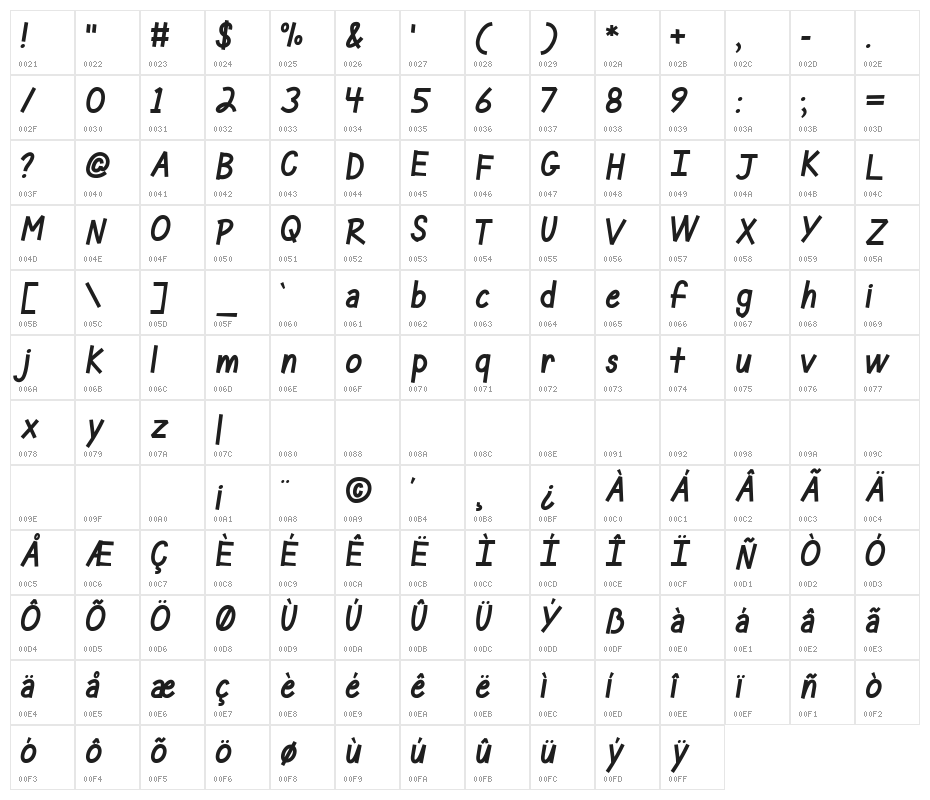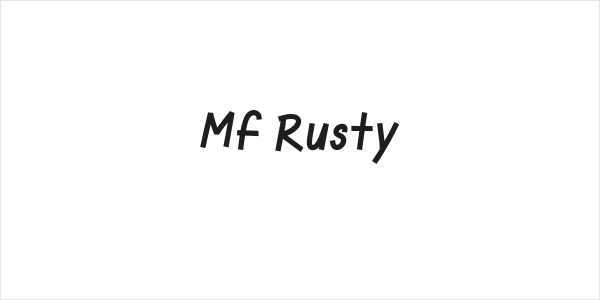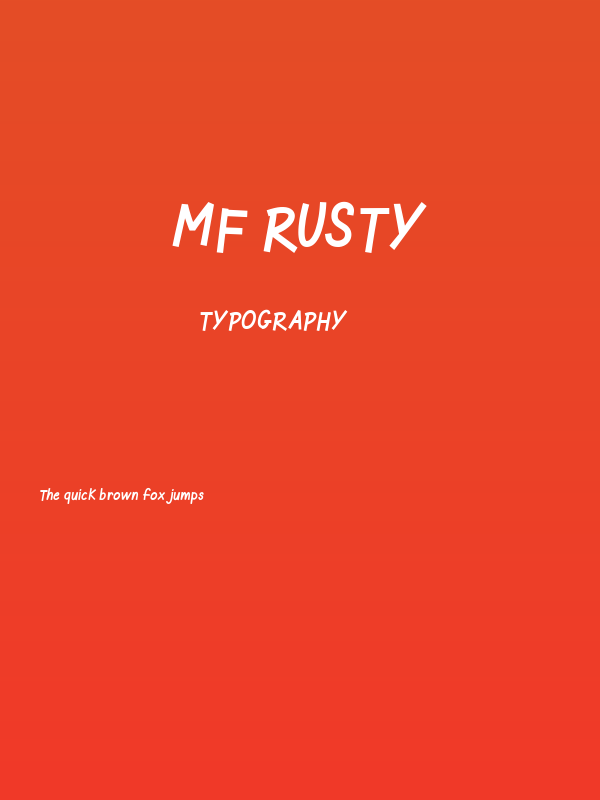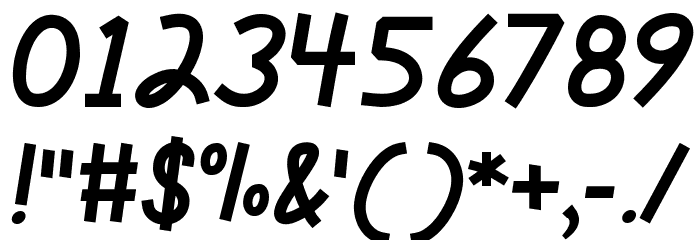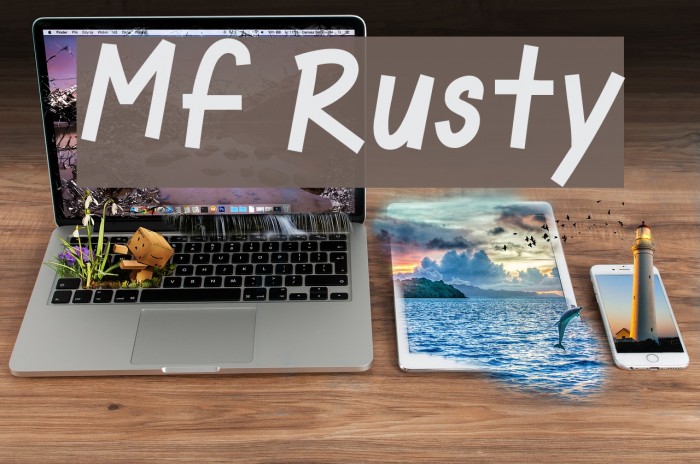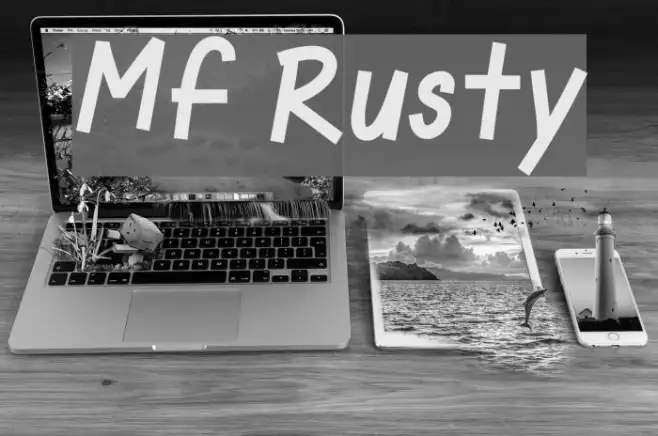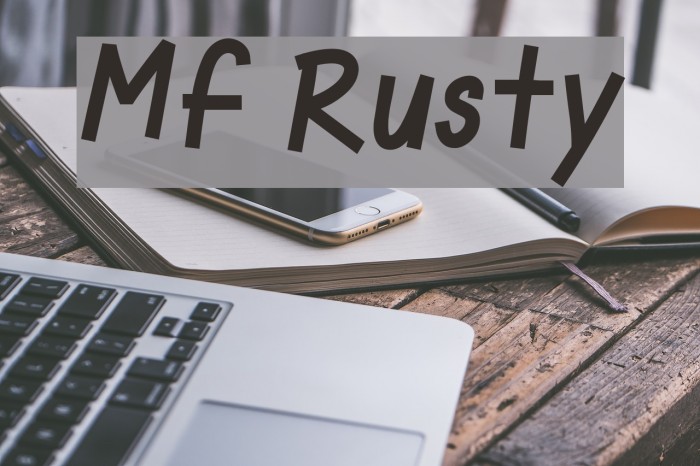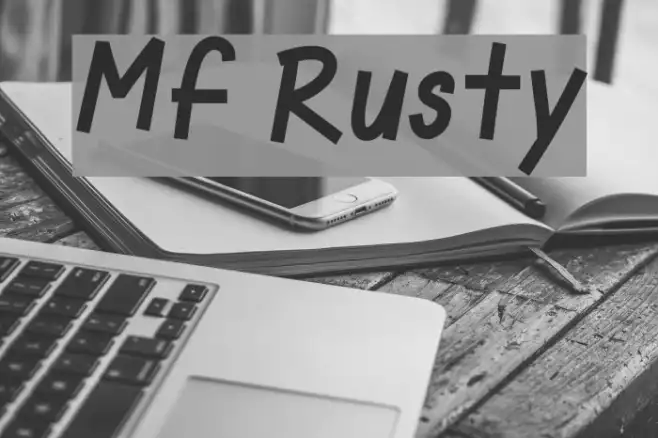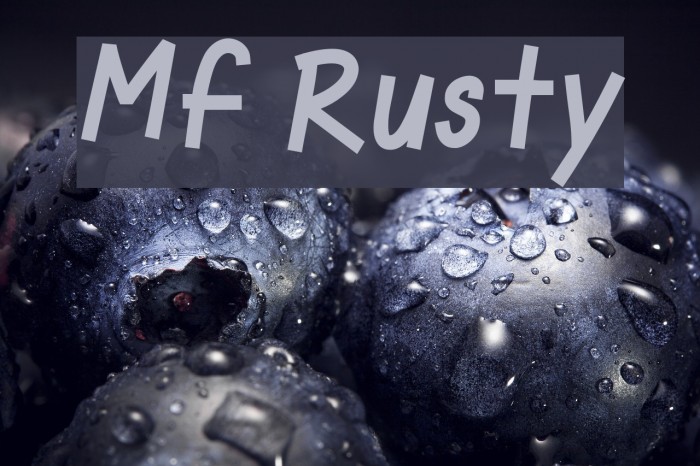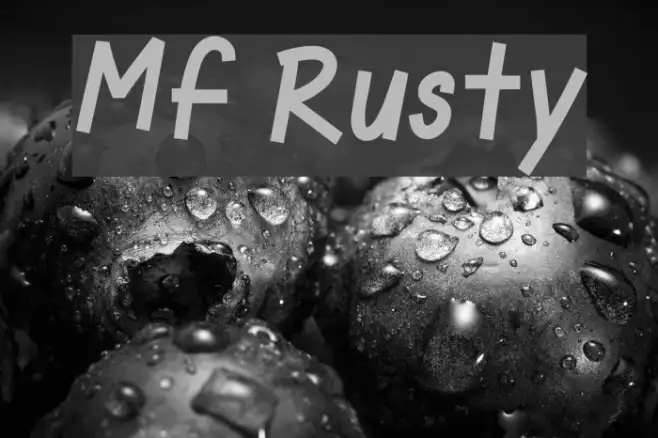
Mf Rusty Font
Mf Rusty Description
This font features a playful and dynamic style with a handwritten feel. The characters are slightly slanted, giving a sense of movement and energy. The strokes are bold and consistent, with rounded edges that add a friendly and approachable look. The uppercase and lowercase letters maintain a uniform style, while the numbers and special characters are clearly legible and well-integrated. This font's informal and lively appearance makes it suitable for creative and casual applications.
| Proposed Projects | Ideal for children's books, greeting cards, playful branding, and informal invitations. |